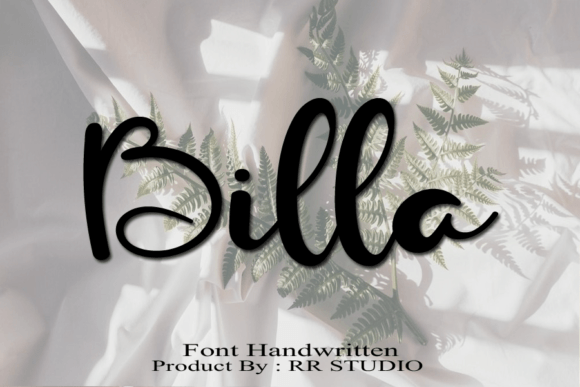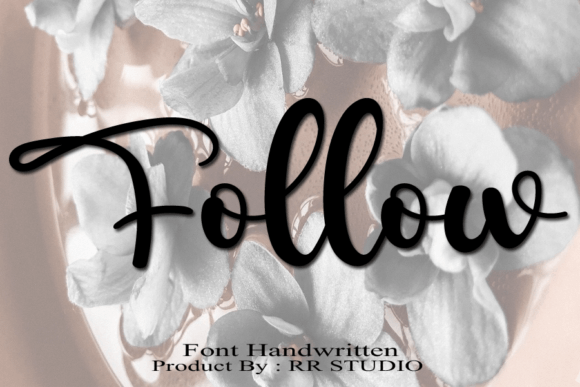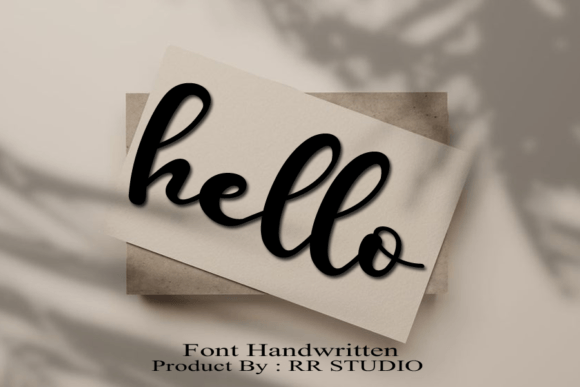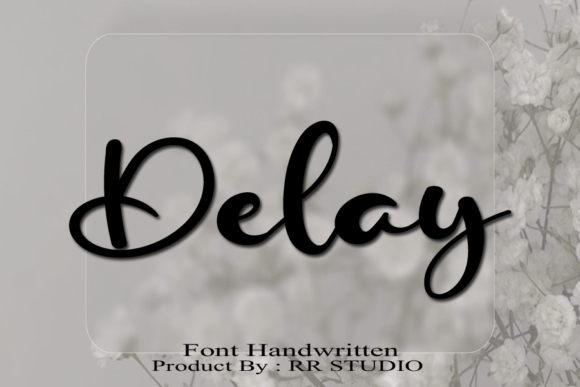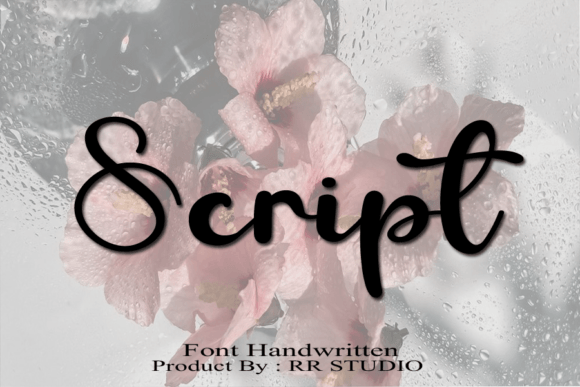
Belly Font
About Belly Font
“Belly” is a classic and simple handwritten script font, crafted in a free and random style. This font is designed to be versatile, making it suitable for a variety of creative design projects. Whether you’re working on logotypes, headlines, corporate identity, brand identity, apparel industry, posters, music, movies, games, magazines, books, comics, cartoons, YouTube, Instagram, websites, or any other project, Belly is created to add a touch of classic simplicity.
The free and random style of Belly contributes to its unique and organic aesthetic. This font is well-suited for projects that demand a natural and handwritten charm. Its simplicity ensures legibility while providing a timeless quality that adapts to various design contexts.
Belly is adaptable to different industries, making it a versatile choice for diverse creative applications. From corporate branding to social media graphics, this font complements a wide range of projects, adding a touch of simplicity and warmth.
Incorporate Belly into your creative endeavors to witness how it enhances your designs. Let it be the font that adds a classic and simple handwritten touch, making your creations stand out and resonate with authenticity. With its versatile style, Belly becomes a valuable tool in your design toolkit for bringing a timeless and free-spirited quality to your projects.